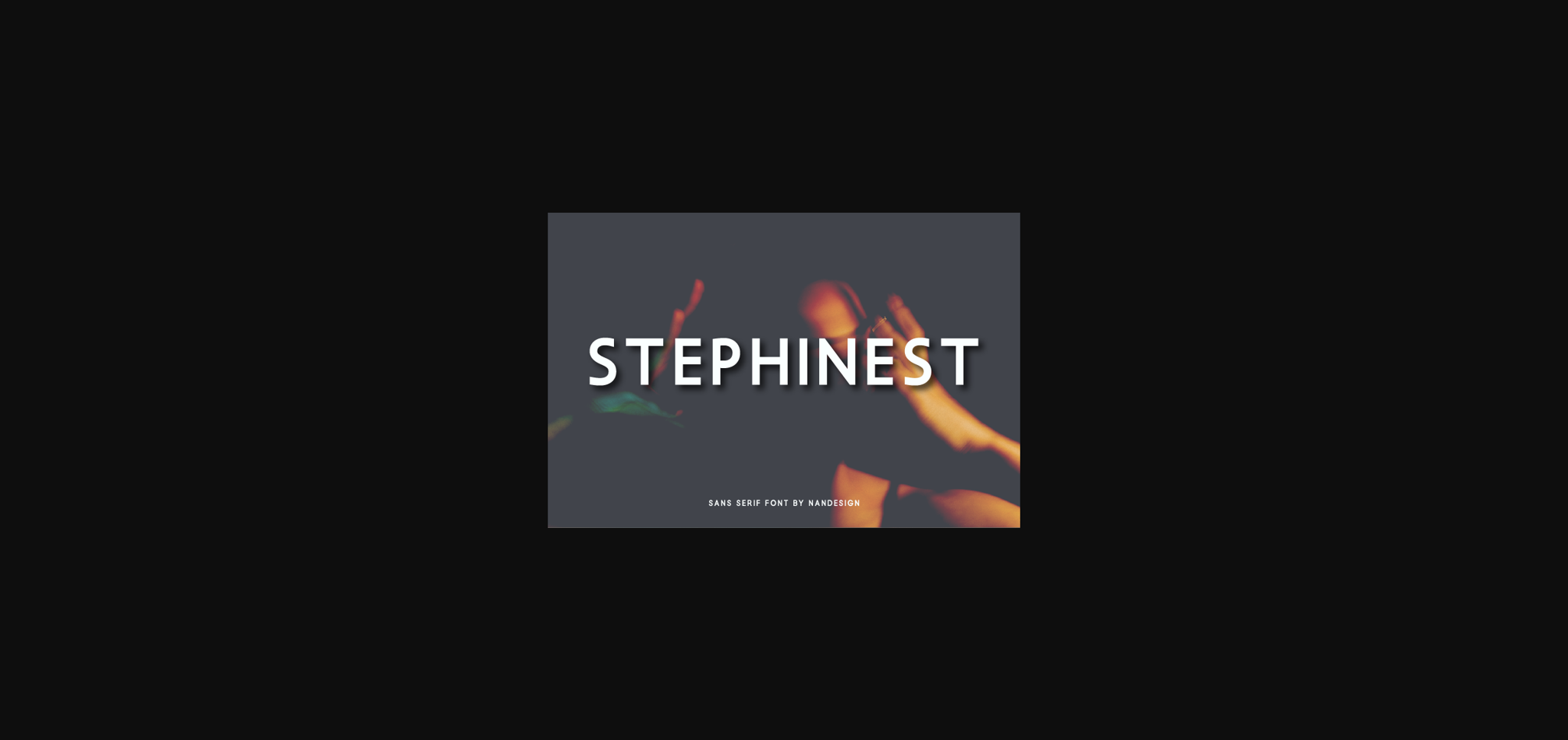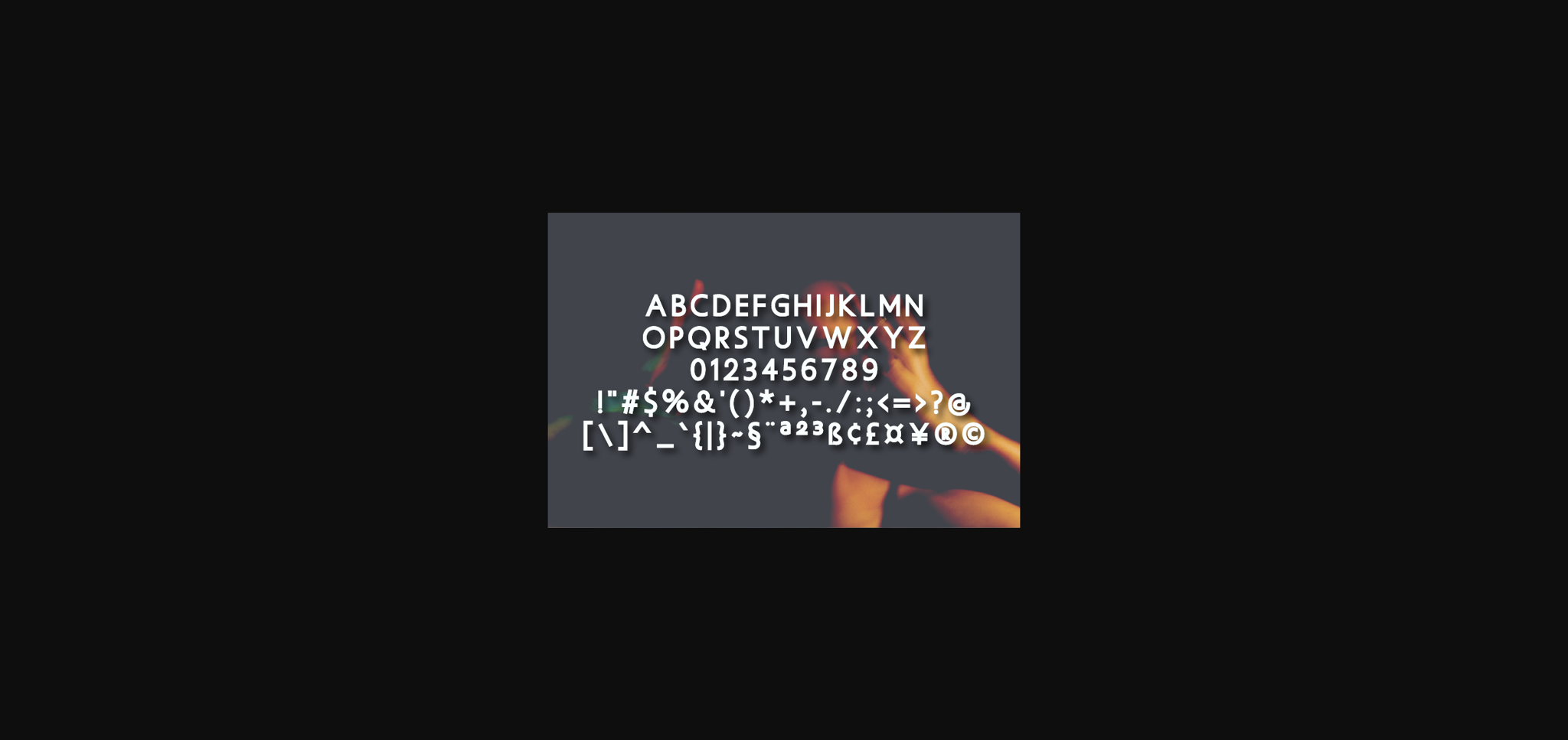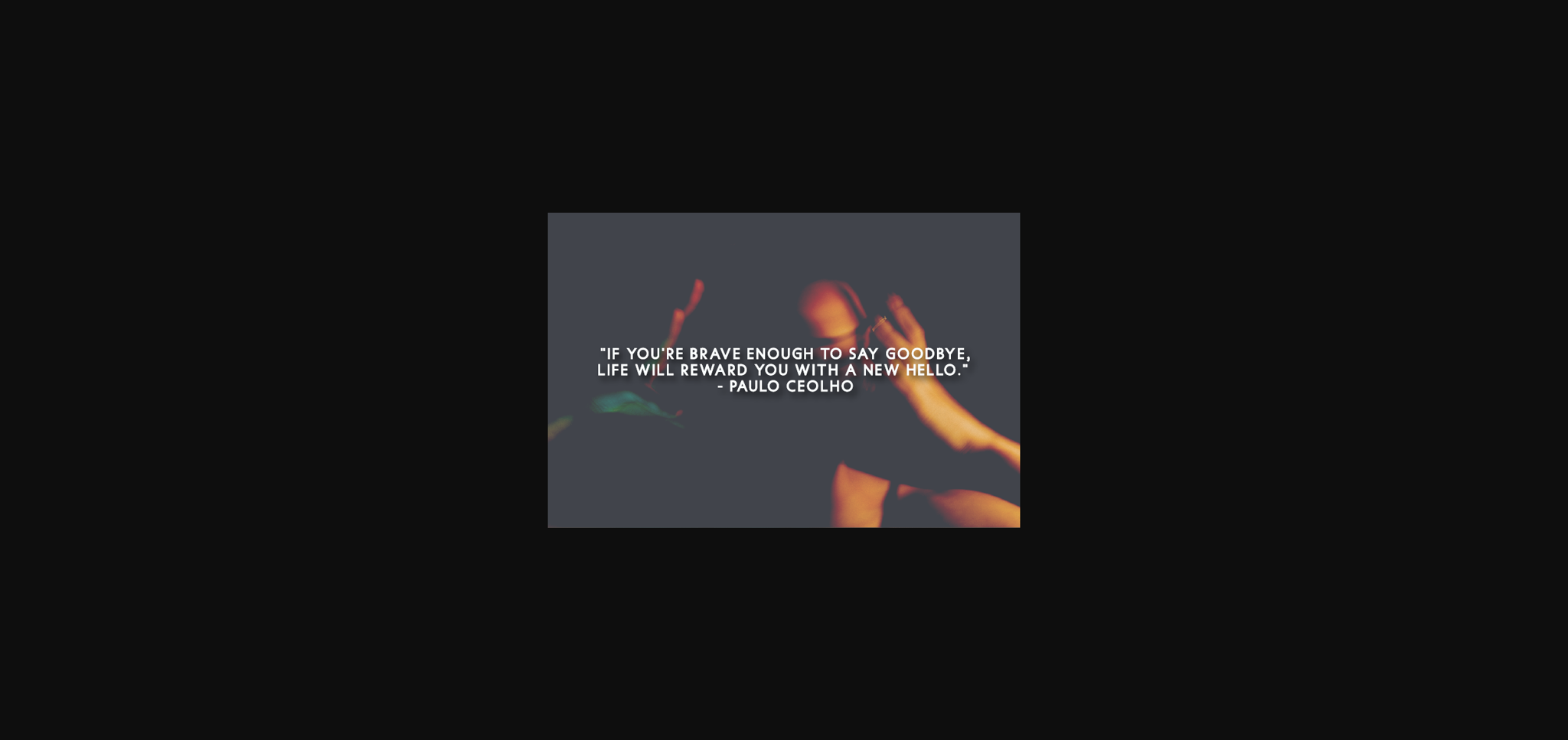
HomeSans Serif FontsStephinest Font Sans Serif Fonts Stephinest Font FacebookXPinterestWhatsApp 1 of 5 ... Stephinest Font Poster 2... Stephinest Font Poster 3... Stephinest Font Poster 4... Stephinest Font Poster 5... About Stephinest Font Stephinest is a natural and clean lettered sans serif font. It is ideal for any branding, product packaging, invitation, quote, t-shirt, label, poster, logo that you wish to create. DOWNLOAD NOW People also explored Awestruck Font Spectra Script Font Black Cokies Font Branding Pro Font Hello Happiness Font Corner Deli Halloween Skeleton Font Executive Font Sinatria Font 268 0 TagsStephinest Font Previous articleThneilote FontNext articleMaghentha Font LEAVE A REPLY Cancel reply Comment: Please enter your comment! Name:* Please enter your name here Email:* You have entered an incorrect email address! Please enter your email address here Website: Save my name, email, and website in this browser for the next time I comment. Personal Use Free Histeria Bites Personal Use Free Read more about this font Wallabys Junior Personal Use Free Read more about this font Straighler Personal Use Free Read more about this font Alligator Font Personal Use Free Read more about this font BLOG How to Install and Use Fonts on Windows, macOS, and Web Projects How to Install and Use Fonts on Windows, macOS, and Web Projects Fonts are a crucial part of design and branding. Whether you’re designing a... To increase your work productivity, choose the most readable fonts. Using Fonts in Digital Marketing: Tips to Strengthen Your Brand Identity The 10 Best Handwriting Fonts to Add Personality to Your Designs